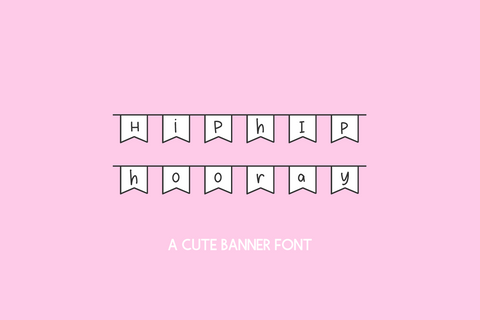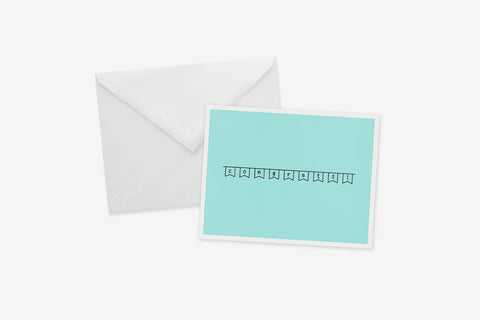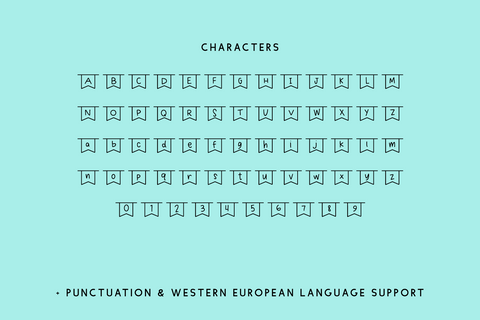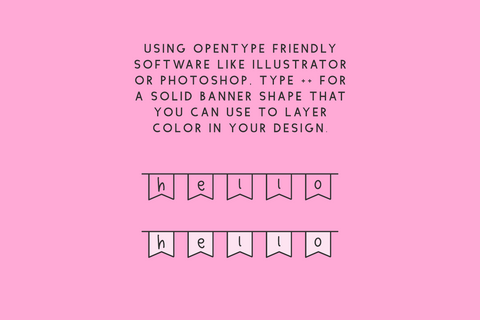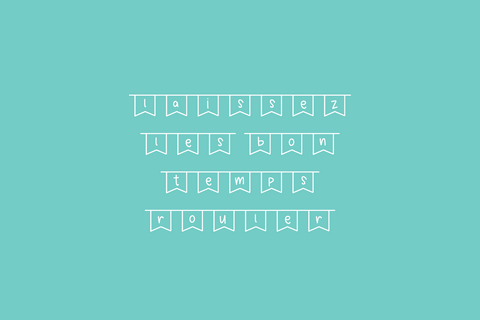
Hip Hip Hooray Banner Font
Hip Hip Hooray is a neat sans font encased in individual little banners for a fun touch. Hip Hip Hooray is great for greeting cards, painted banners, digital planners, note-taking apps, Canva, Cricut projects, Silhouette projects, designing SVG files, laser cutting projects, & more.
Hip Hip Hooray Sans includes:
- full upper + lowercase characters
- numbers + punctuation
- PUA-encoding
- Western European language support - English, French, Spanish, Portuguese (Brazil), Portuguese (Portugal), Italian, German (Germany), German (Austria), Dutch, Danish, Swedish, Norwegian (Bokmål and Nynorsk), Finnish, Icelandic, Irish, Welsh
Bonus: Type ++ to reveal a solid banner shape that you can layer with the font to color in your design.